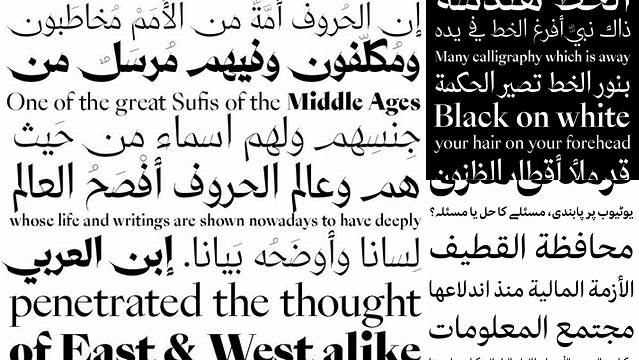
Zeyn Fonts: Your Guide To Arabic & Latin Typography
Hey everyone, let's dive into the awesome world of Zeyn fonts, particularly their multilingual Arabic and Latin offerings! If you're into design, whether you're a seasoned pro or just starting out, understanding font choices is super crucial. Zeyn fonts bring something special to the table, especially for projects that need a harmonious blend of Arabic and Latin scripts. This article is your go-to guide, breaking down what makes Zeyn fonts tick, why they're a great choice, and how you can use them effectively. We'll cover everything from their design philosophy to practical tips for using them in your projects. So, buckle up, and let's explore the beautiful and versatile world of Zeyn multilingual fonts!
The Essence of Zeyn Fonts: Bridging Arabic and Latin
First off, what exactly are we talking about? Zeyn fonts are meticulously designed typefaces that beautifully integrate Arabic and Latin scripts. This means they're created with a deep understanding of both writing systems, ensuring that the fonts work together seamlessly. This is a big deal, guys, because it's not just about slapping two different fonts together. It's about creating a cohesive visual experience. The designers behind Zeyn fonts pay close attention to things like stroke weight, x-height, and overall style, so the two scripts feel like they belong together. This is particularly important for multilingual projects, where you want a consistent look and feel throughout your design. Imagine a website or a document that switches between Arabic and English; Zeyn fonts ensure that the transition is smooth and visually appealing. This is a critical aspect of good design, helping to create a professional and polished look. The goal is to make the reading experience as easy and enjoyable as possible, irrespective of the language being read. Without this careful consideration, you run the risk of jarring transitions and a less-than-professional appearance. Zeyn fonts are crafted with a deep appreciation for the nuances of both scripts, striving to create a perfect balance between aesthetics and readability. They understand that each script has its own unique characteristics and challenges. By addressing these complexities head-on, Zeyn fonts create a unique visual identity that enhances the overall experience. The designers behind Zeyn fonts put in a lot of work to make sure everything looks and works perfectly, which is awesome!
What makes Zeyn fonts stand out is their commitment to both functionality and aesthetics. These fonts aren't just about looking good; they're also about making sure your text is easy to read and understand. This is achieved through careful attention to detail, such as the spacing between letters and words, and the overall clarity of the glyphs. The creators want to ensure that the letters are easy to distinguish from one another, even at smaller sizes. They provide excellent readability, which is an essential part of effective design. In a world where the details matter, Zeyn fonts shine. This is super important for any project that involves a lot of text, like articles, books, or websites. Zeyn fonts are made to be functional and beautiful, which is why they're so popular. The meticulous work done by the designers pays off in the form of a versatile and high-quality font. They're designed to be readable in various contexts and are made to fit a wide range of purposes. This is a testament to their commitment to creating fonts that are not only visually appealing but also extremely practical.
Key Features and Design Philosophy of Zeyn Fonts
Let's explore what makes Zeyn fonts so special! First, the design philosophy is all about balance and harmony. Zeyn fonts aim to create a perfect blend of Arabic and Latin scripts. Designers go to great lengths to make sure both scripts feel like they belong together, paying special attention to things like the thickness of the strokes and the overall style. This isn't just about making the fonts look good; it's about creating a cohesive and readable experience. It's about making sure the Arabic and Latin letters work well together. The fonts are crafted with the idea that multilingual projects should be seamless, and this is clearly reflected in the design choices. The creators of Zeyn fonts are driven by the idea of providing clarity and elegance. They want to ensure that your text is not only beautiful but also easy to understand. The goal is to make the reading experience as enjoyable as possible, regardless of the language being read.
Next, the features. Zeyn fonts often include a wide range of weights and styles, giving you a lot of flexibility in your designs. From thin, delicate fonts to bold, attention-grabbing ones, you've got a bunch of options. This lets you choose the perfect look for any project, whether you're designing a website, a poster, or anything else. This is super helpful because it allows you to find the perfect font for every situation. Plus, they often have OpenType features that support advanced typographic options, like ligatures and stylistic sets. Ligatures are special characters that combine two or more letters into a single glyph, which can improve readability and add a touch of elegance. Stylistic sets allow you to customize the appearance of your text even further. This level of detail is what sets Zeyn fonts apart.
Technical aspects. Many Zeyn fonts are designed with excellent kerning, meaning the spacing between letters is carefully adjusted for optimal readability. This is super important because it can make a huge difference in how easy your text is to read. This is not something you think about a lot, but it can hugely impact how the reader interprets the content. Good kerning ensures that the letters don't look too close together or too far apart, ensuring your text is clean and easy on the eyes. They are also well-optimized for screen use, making them ideal for websites and digital documents. This is crucial for a great user experience. The technical focus on usability is what makes Zeyn fonts a go-to option for designers everywhere. They've clearly considered everything, from kerning to on-screen performance. The attention to detail translates into a seamless experience for both designers and readers.
Why Choose Zeyn Fonts for Your Projects?
So, why choose Zeyn fonts? Well, for starters, they offer seamless multilingual support. This is a lifesaver if you're working on projects that involve both Arabic and Latin scripts. It's not just about having the right characters; it's about making sure everything looks harmonious. Zeyn fonts ensure that the two scripts work together beautifully, which can make your project look much more professional and polished. Choosing Zeyn fonts is a great way to enhance the impact of your message. The goal is to make your content accessible and appealing to a wider audience.
They provide excellent readability. This is a huge deal, especially for long-form content like articles and books. Zeyn fonts are designed to be easy on the eyes, which is a must if you want people to actually read what you've written! Because let's face it, if the font is hard to read, people won't stick around. They ensure a great reading experience, and that's something that's very important in modern design. It is about making your content user-friendly and enjoyable. With their emphasis on readability, Zeyn fonts are a great choice for any project where clarity matters.
Moreover, the versatility and style are a big draw. Zeyn fonts come in a variety of weights and styles, from classic to modern, so you can find the perfect fit for your brand or project. Want a sleek, minimalist look? You got it. Need something bold and eye-catching? No problem! This versatility makes Zeyn fonts suitable for almost any design challenge. They offer lots of options so you can use them in all kinds of contexts. This means you can create anything from elegant invitations to dynamic website headers. Plus, they give you a range of options, so you can always find a perfect match for your project.
Practical Tips for Using Zeyn Fonts Effectively
Okay, so you've got Zeyn fonts and you are ready to go! Here are some tips on how to use them effectively. First, choose the right font for your project. Consider the tone and message you want to convey. Are you going for a formal look or something more casual? Make sure the font you select matches the mood of your project. For example, a bold, modern font might work great for a tech company, but a more classic serif font would be better for a law firm. Remember that the right font can elevate your project, while the wrong one can distract from your message. Choose wisely, and your content will shine.
Conclusion: Embracing the Beauty of Zeyn Fonts
In conclusion, Zeyn fonts are an awesome choice for anyone working on multilingual projects that involve Arabic and Latin scripts. Their beautiful design, excellent readability, and versatility make them a valuable asset for designers of all levels. By understanding the unique features and design philosophy of Zeyn fonts, you can create stunning and effective designs that cater to a diverse audience. So go ahead, give Zeyn fonts a try, and see how they can elevate your projects! You'll be amazed by the difference they can make. They can help you achieve a professional look and create a more engaging reading experience. Ultimately, choosing the right font can set the tone for your work, and Zeyn fonts are a great choice! You can do some really cool stuff with these fonts, so get creative and let your imagination run wild!